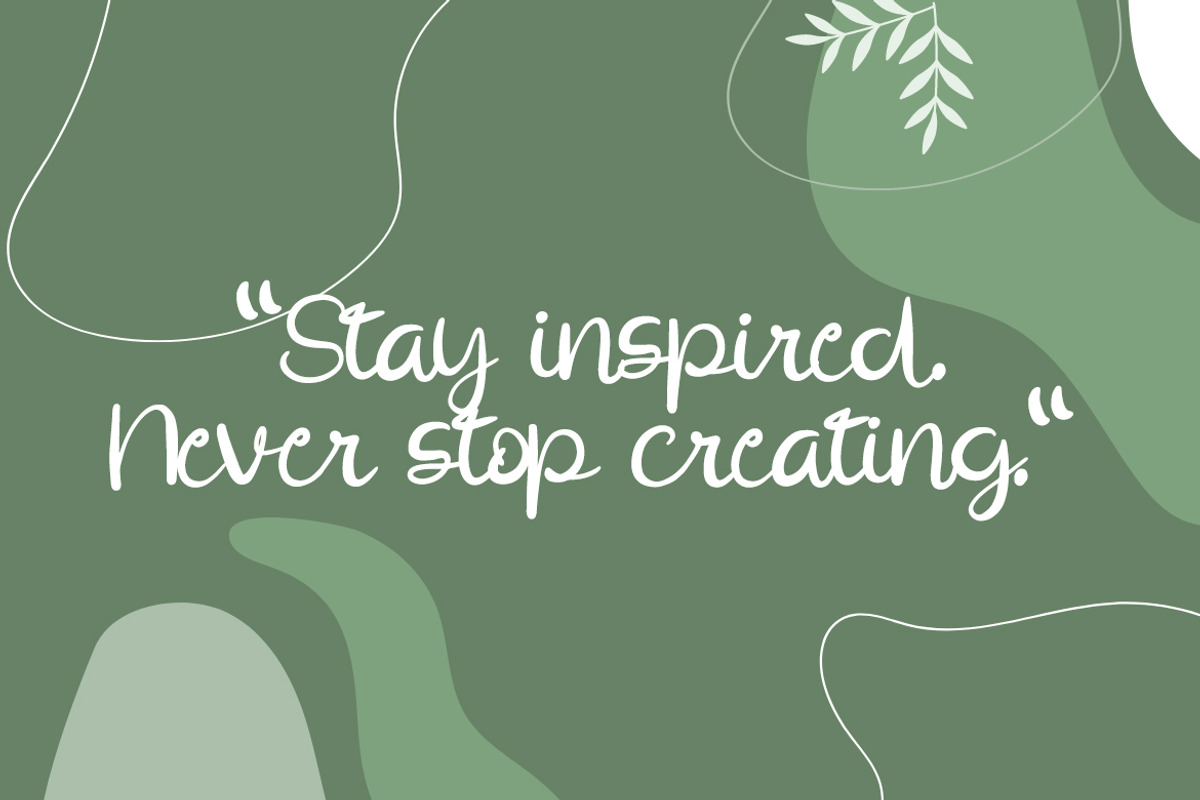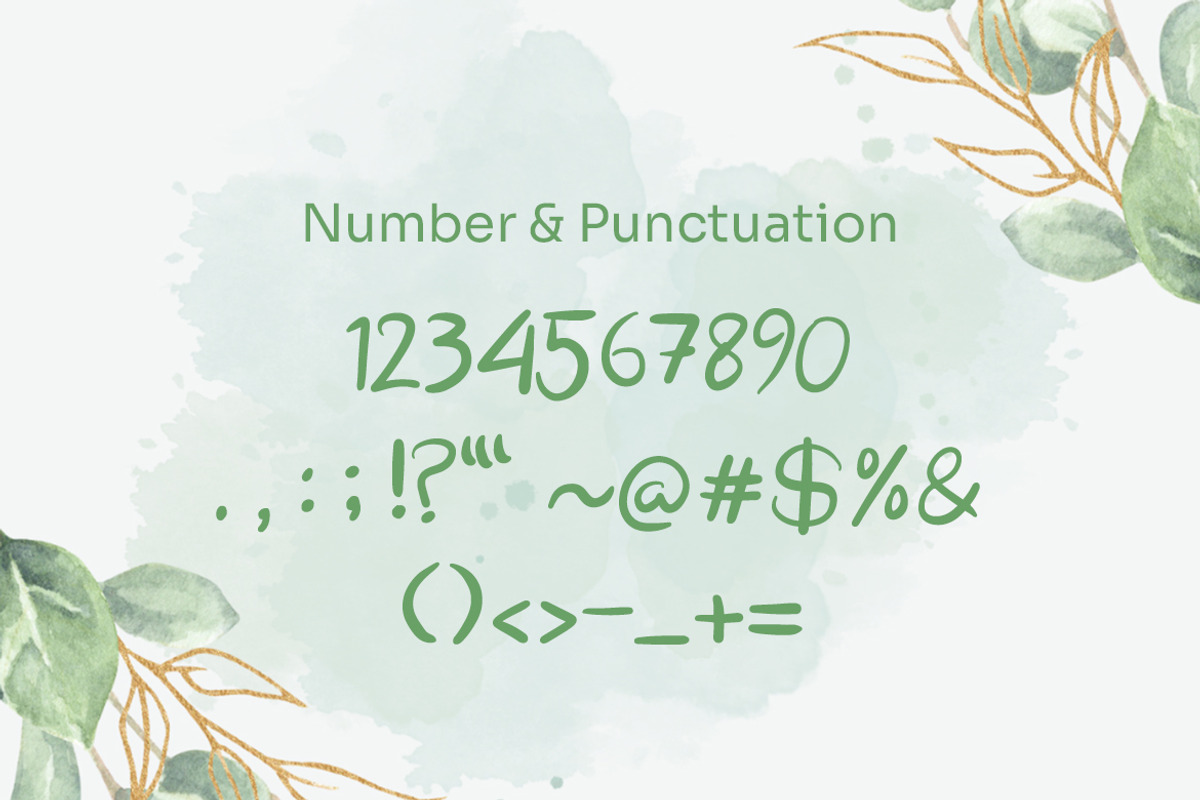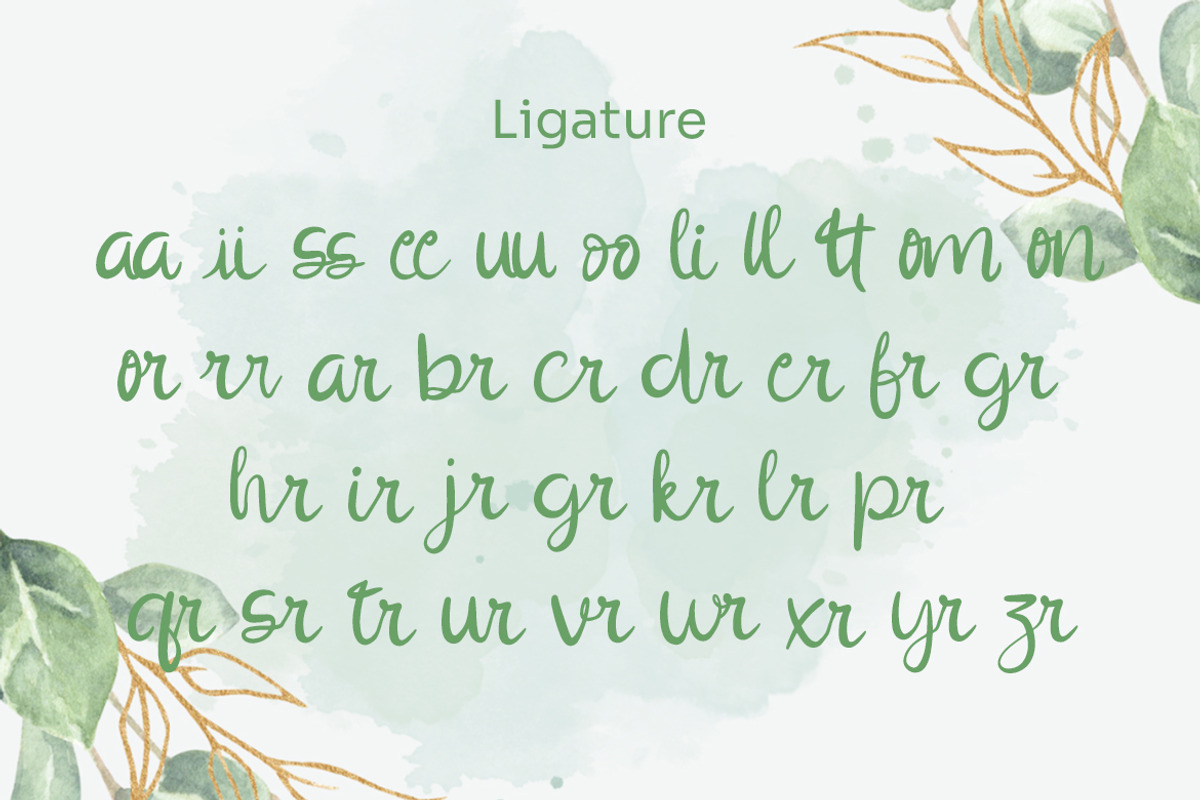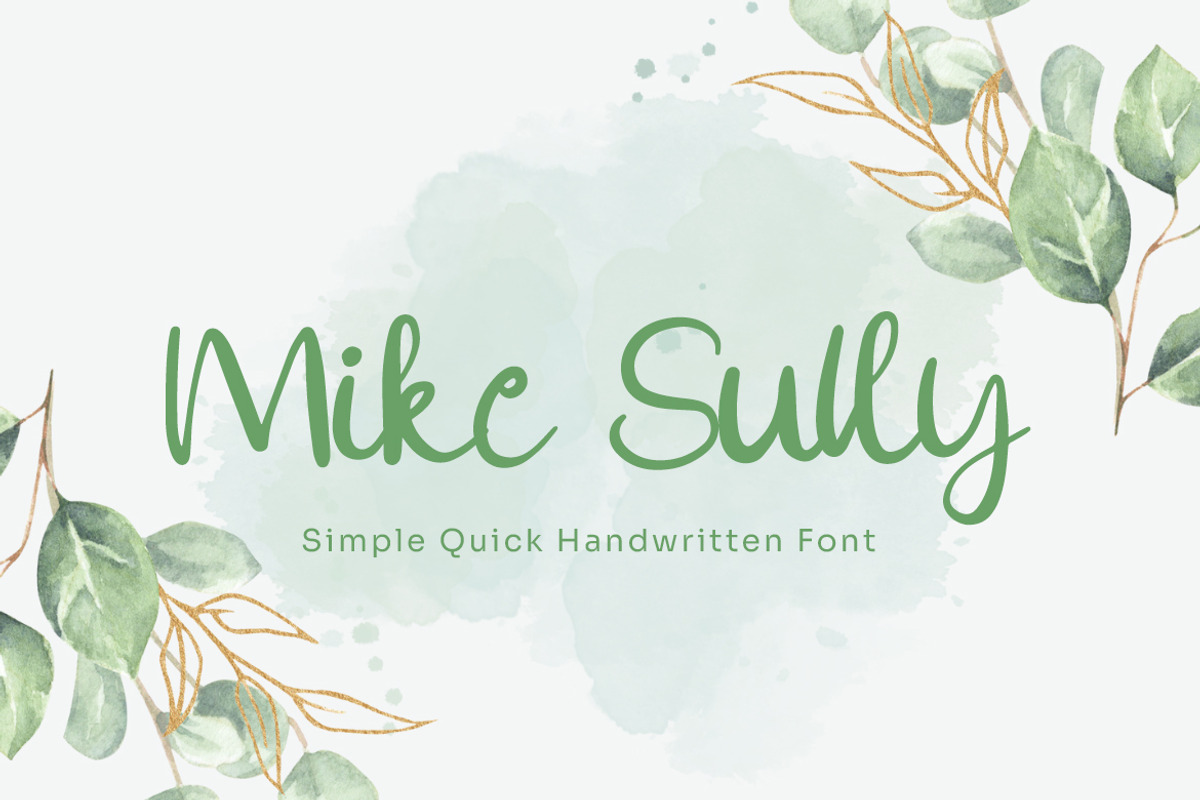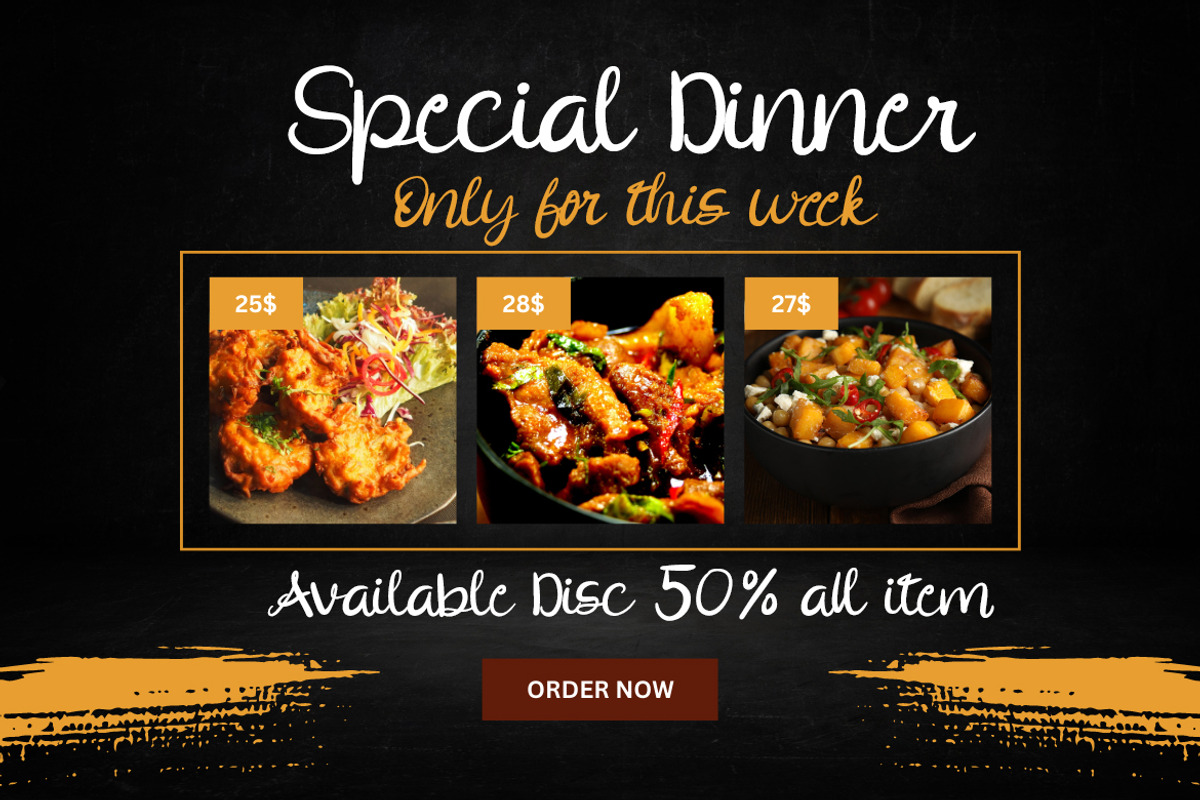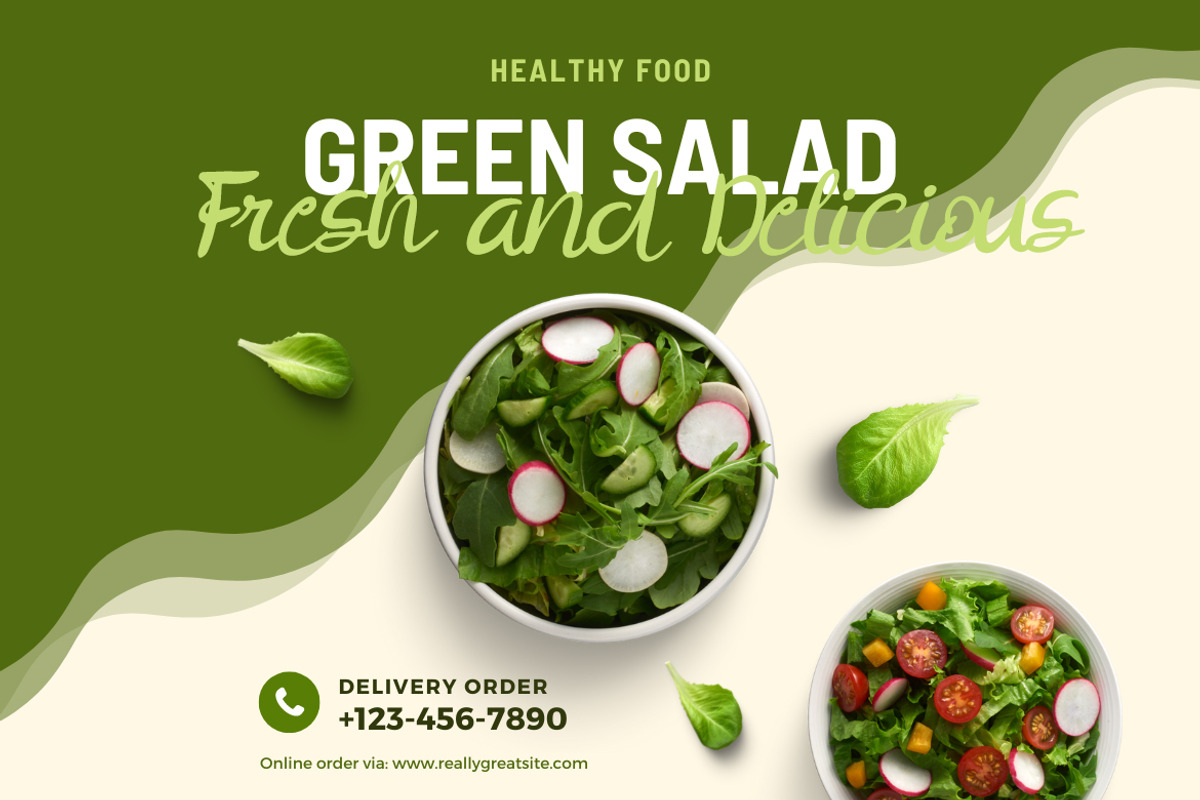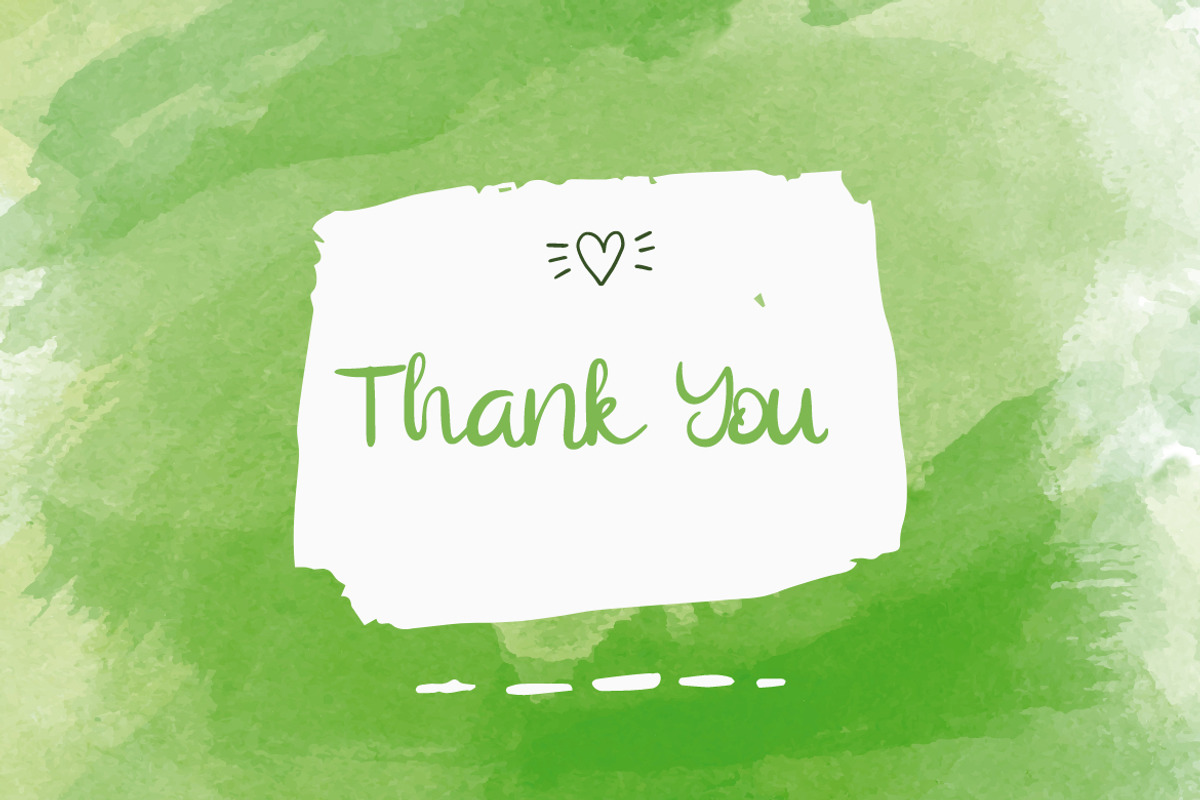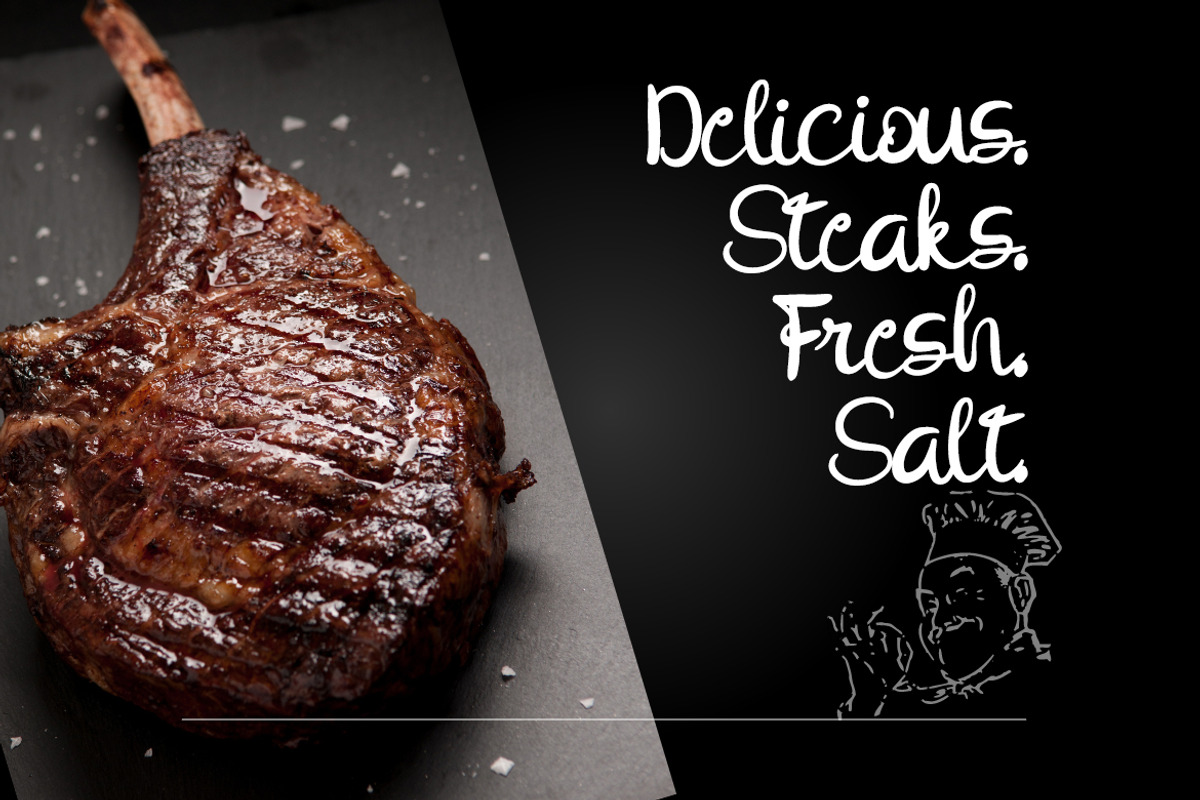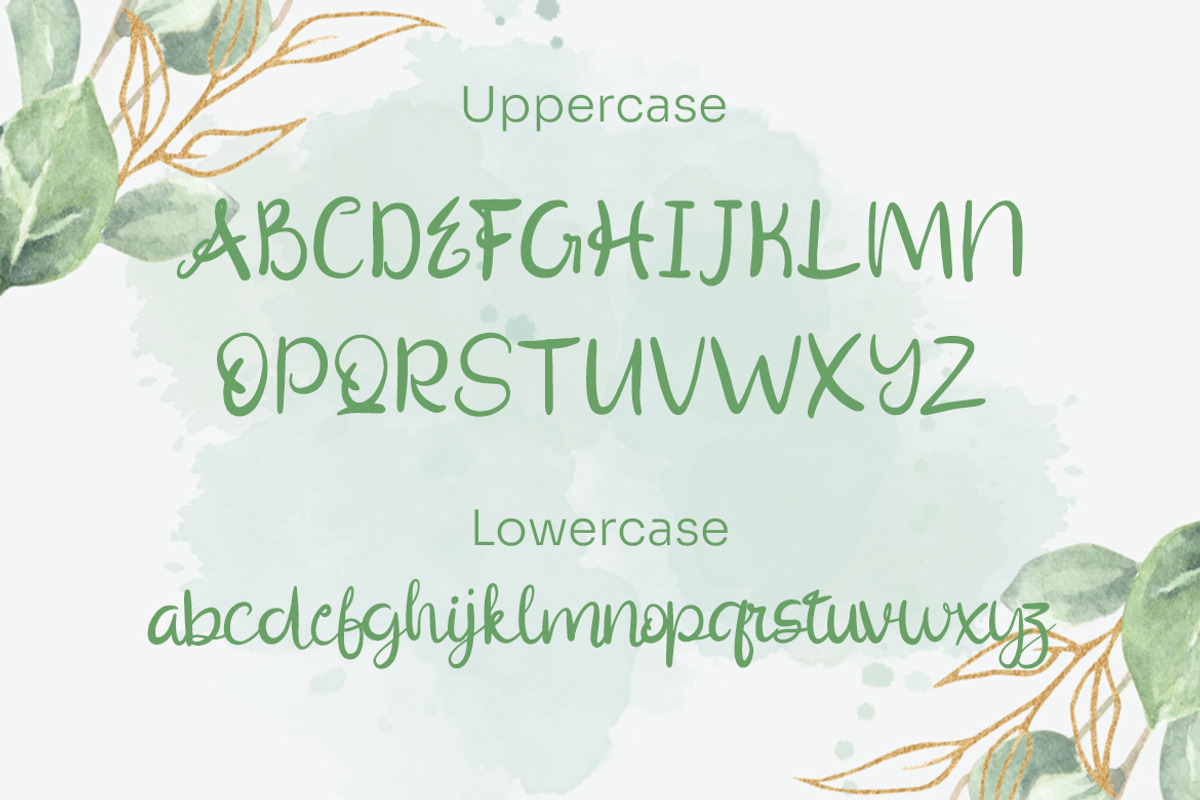
Mike Sully - Handwritten Font
Introducing Mike Sully - Handwritten Font
This Font is a delicate, elegant and flowing handwritten font. It has beautiful and well as a unique blend of ligatures a letter, so that the authors compose it with a and little swirly embedding, so that a modern font is formed and ready to make a statement by adding elegant and unique flair to your next design project. Add it to your most creative ideas and notice how it makes them come alive!
• Ligature